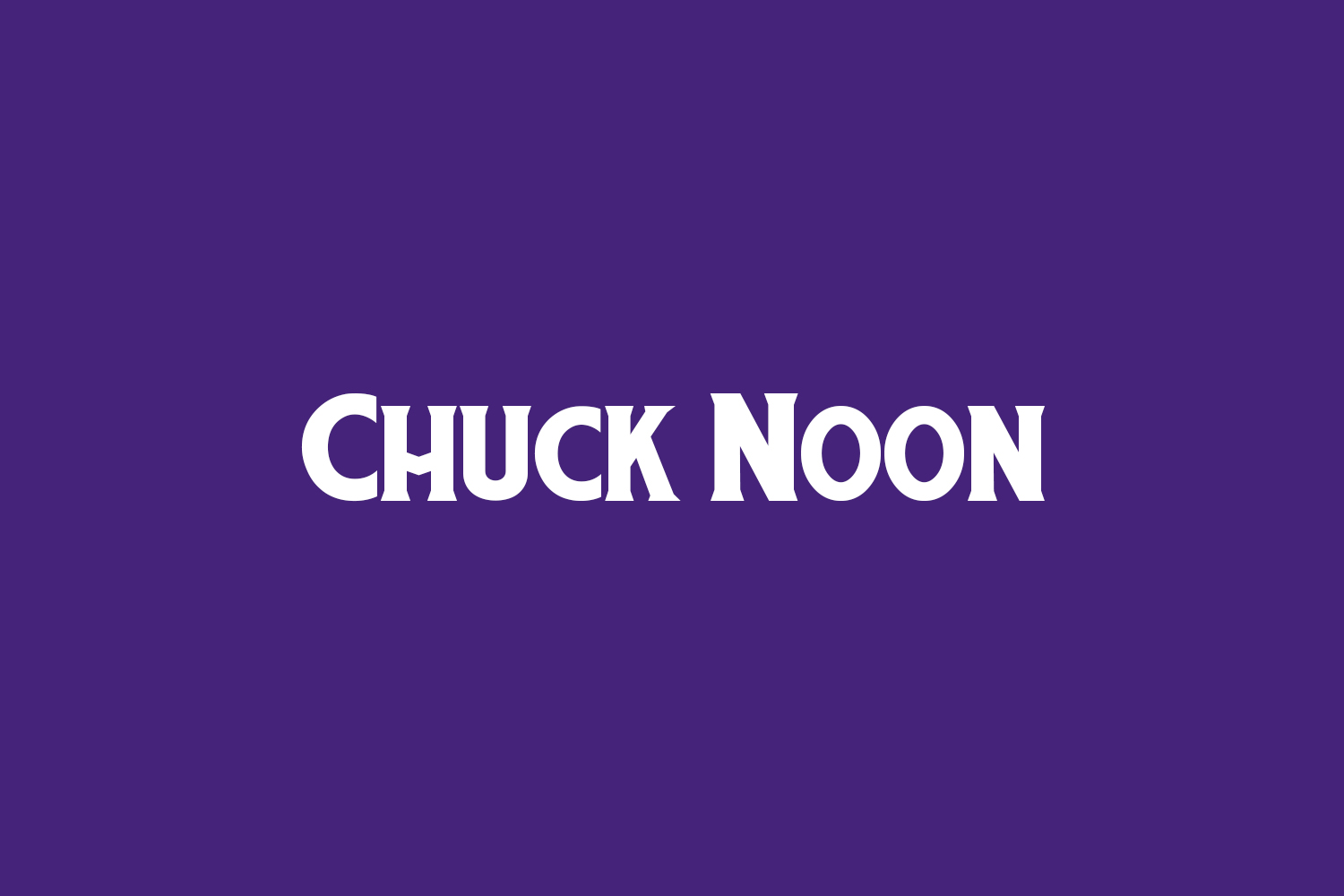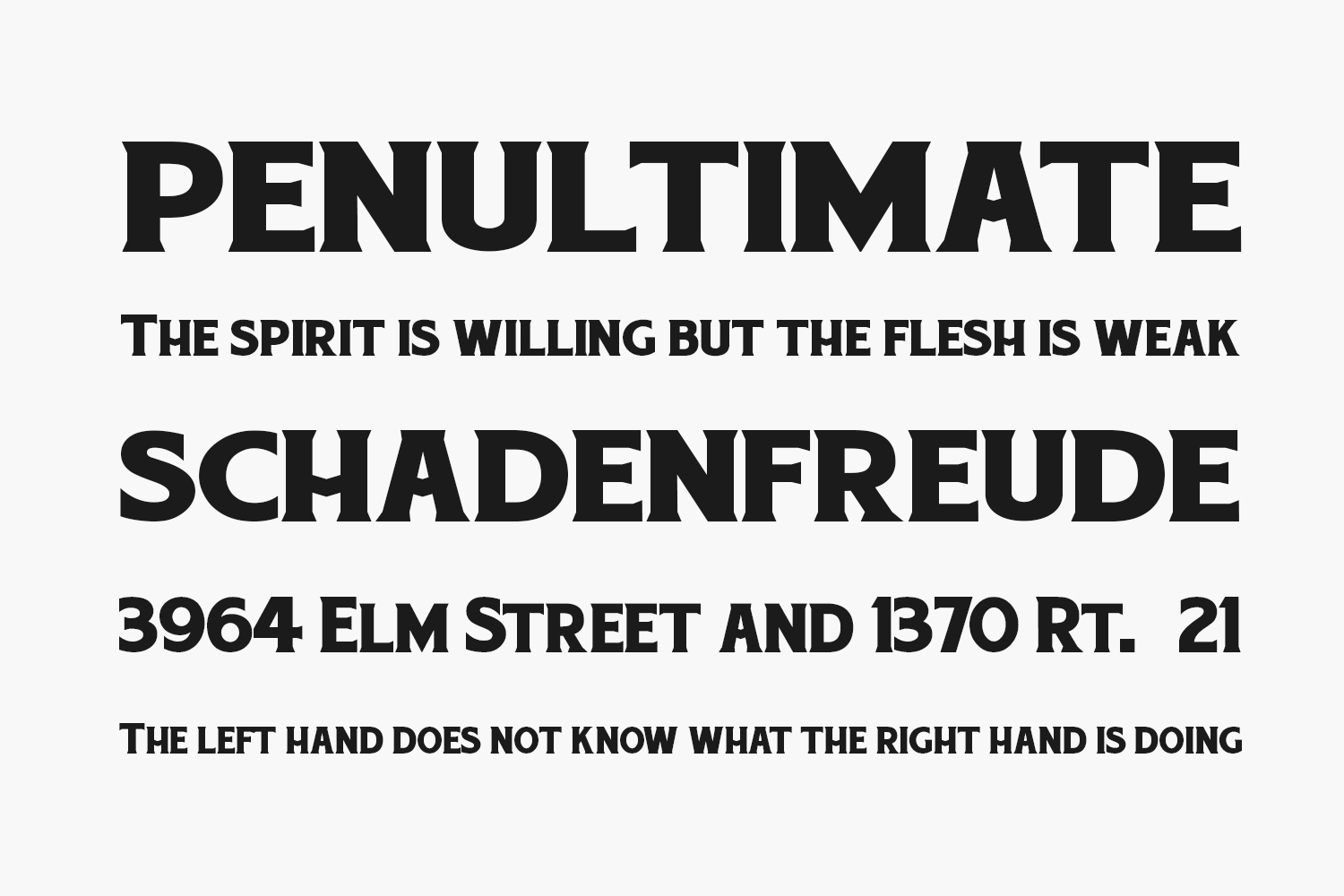
Chuck Noon Free Font is a heavy & block font/typeface inspired by old-school advertising letters. Available in uppercase, lowercase, numerals, punctuations & other characters.